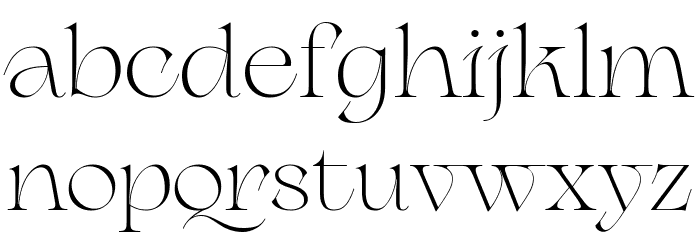
Erotique Trial Regular Font
This font features an elegant and sophisticated design with a modern twist. The characters are crafted with a high contrast between thick and thin strokes, giving it a refined and stylish appearance. The uppercase letters exhibit a unique flair with subtle curves and sharp serifs, while the lowercase letters maintain a graceful flow. The special characters are artistically designed, adding to the font's overall charm. This typeface stands out with its decorative elements, making it suitable for projects that require a touch of elegance and creativity.
An elegant and sophisticated font with high contrast and decorative elements.
- Proposed Projects: Ideal for luxury branding, wedding invitations, fashion magazines, and high-end product packaging.